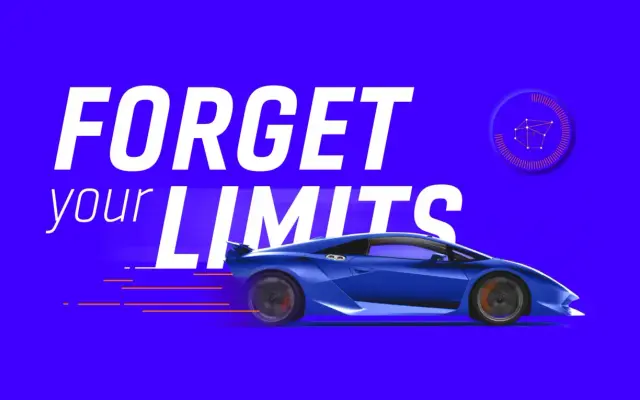
Fester
Fontfabric · Svetoslav Simov, Plamen Motev, Ventsislav Dzhokov · 2022
A semi-condensed geometric grotesque from Fontfabric, built across eight weights with a variable font and Cyrillic support for tech branding and editorial work.
Released in March 2022, Fester was developed over several years by Svetoslav Simov, Plamen Motev and Ventsislav Dzhokov. Low contrast and sharp terminals give it a hard-edged, space-efficient quality suited to headlines, UI layouts and product packaging. The family ships with 16 styles, a companion variable font, and a 760-plus glyph set covering more than 130 languages across Extended Latin and Cyrillic.
A semi-condensed grotesque with four-square geometry, sharp terminals and low contrast, placing it firmly in the geometric grotesque tradition with a condensed, tech-forward character.